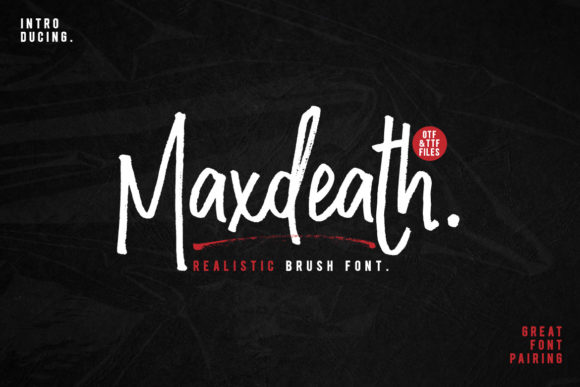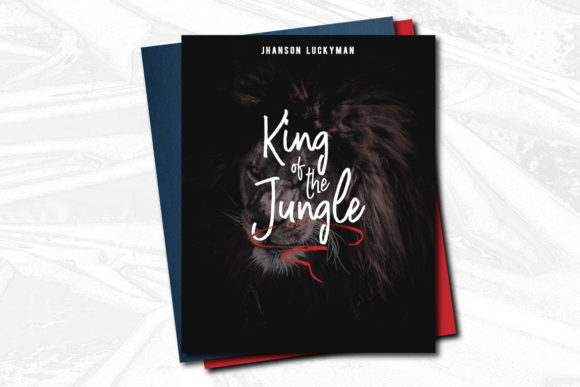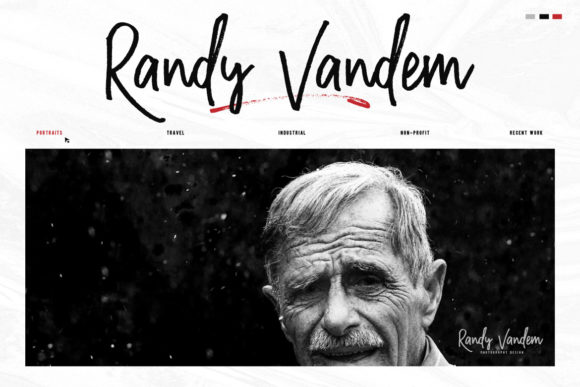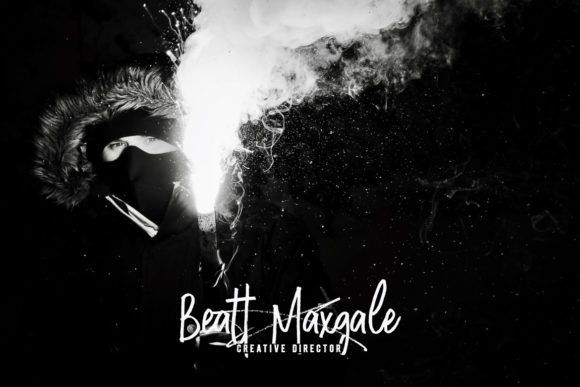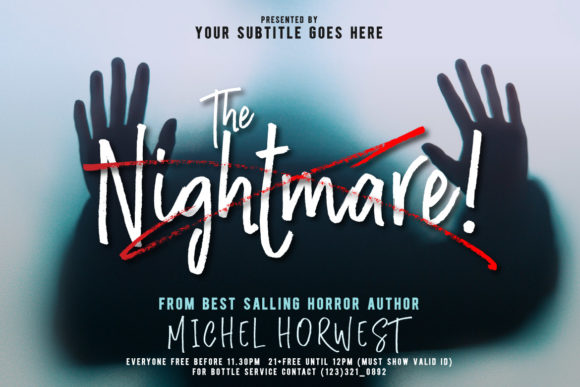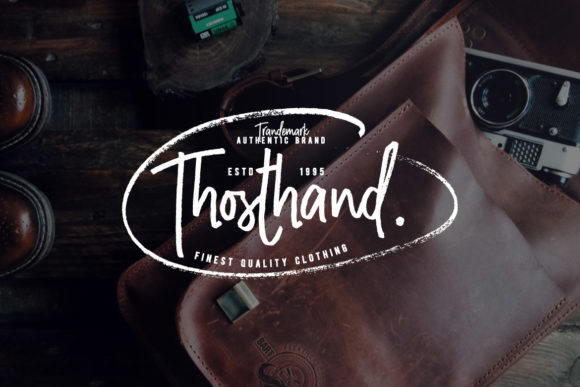
HomeScript FontsMaxdeath Font Script Fonts Maxdeath Font FacebookXPinterestWhatsApp 1 of 6 Maxdeath Font Poster 2... Maxdeath Font Poster 3... Maxdeath Font Poster 4... Maxdeath Font Poster 5... Maxdeath Font Poster 6... About Maxdeath Font Maxdeath is a unique and powerful handwritten font. Add it to your designs and notice how they will stand out! DOWNLOAD NOW People also explored Archivo Lemon Juice Font Youth and Beauty Font Romantic Austine Font Polka Dots Font Haer Script Font Christmas Sweater Font House Plant Font Easter Font 353 0 TagsMaxdeath Font Previous articleFabiolla FontNext articleAdegail Font LEAVE A REPLY Cancel reply Comment: Please enter your comment! Name:* Please enter your name here Email:* You have entered an incorrect email address! Please enter your email address here Website: Save my name, email, and website in this browser for the next time I comment. Personal Use Free Berry Personal Use Free Read more about this font Lixdu Personal Use Free Read more about this font Where the Cookies Personal Use Free Read more about this font Green Fuz Personal Use Free Read more about this font BLOG Best Fonts for YouTube Videos: Make Your Thumbnails Stand Out Best Fonts for YouTube Videos: Make Your Thumbnails Stand Out Choosing the right font can make a massive difference in how your YouTube videos perform.... Where to Buy American Fonts Online in 2024 Transform Your Website: Elevate Your Typography with 7 Best Web Font Generators To increase your work productivity, choose the most readable fonts.